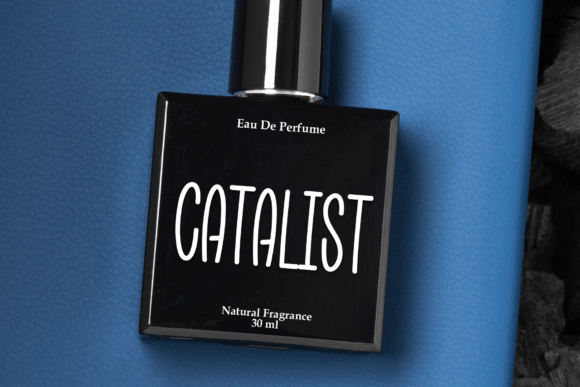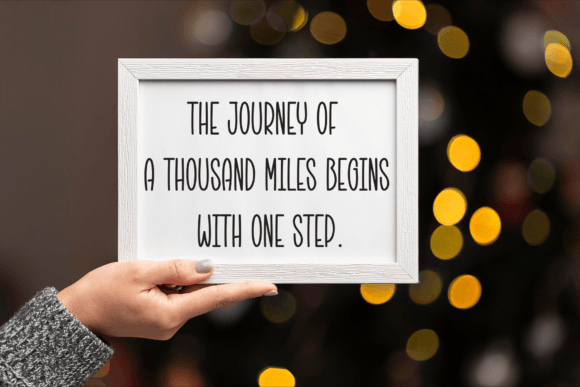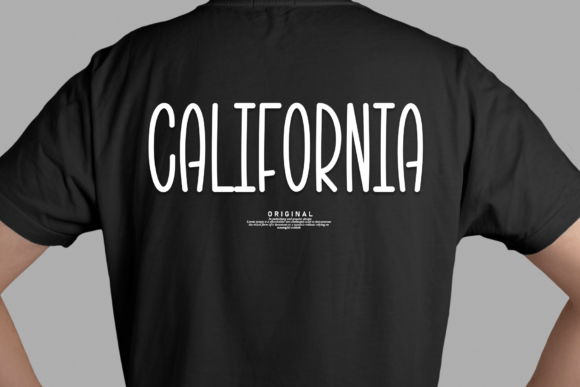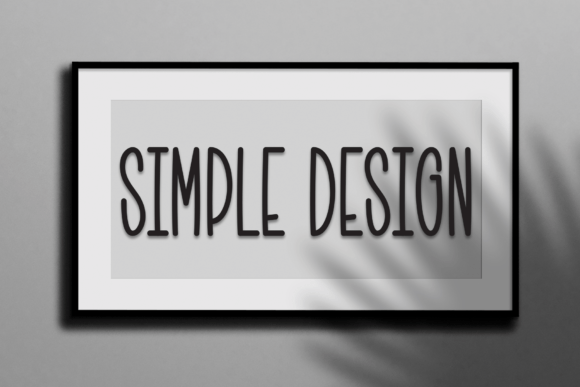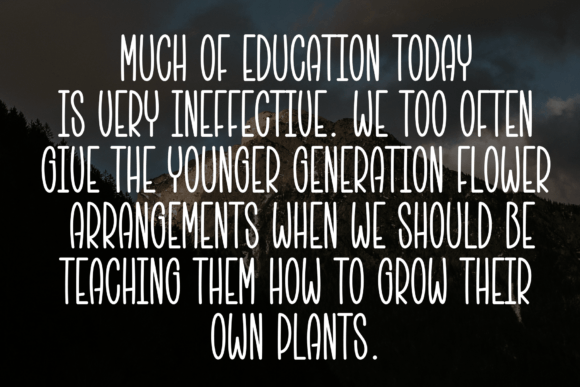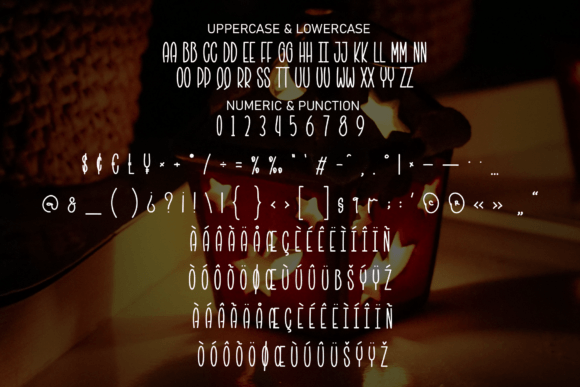
Christmas Lanterns Font: The Perfect Addition to Your Holiday Designs
As the holiday season approaches, designers and crafters are on the lookout for the perfect fonts to add a touch of festive magic to their projects. If you’re looking for a font that embodies the spirit of Christmas, look no further than Christmas Lanterns Font. This stunning display font is sure to capture the hearts of your audience with its elegant design, bright colors, and cheerful letters.
What is Christmas Lanterns Font?
Christmas Lanterns Font is a tall, eye-catching display font that is specifically designed to bring the festive spirit of the holiday season to life. Its elegant design features bright, cheerful letters that are perfect for decorations, cards, and holiday messages. Whether you’re working on a Christmas card, a holiday party invitation, or a festive decoration, this font is sure to add a touch of warmth and joy to your project.
Key Features of Christmas Lanterns Font
- Elegant Design: Christmas Lanterns Font features an elegant design that is sure to impress your audience. Its bright, cheerful letters are perfect for adding a touch of festive magic to your projects.
- Tall and Eye-Catching: This font is tall and eye-catching, making it perfect for headlines, titles, and decorations.
- Perfect for Holiday Projects: Christmas Lanterns Font is specifically designed for holiday projects, making it the perfect addition to your Christmas cards, party invitations, and festive decorations.
Why Choose Christmas Lanterns Font?
There are many fonts available that claim to be perfect for the holiday season, but Christmas Lanterns Font stands out from the rest. Here are just a few reasons why:
- Unique Design: Christmas Lanterns Font features a unique design that is sure to set your projects apart from the rest.
- High-Quality: This font is high-quality and is sure to look great on any device or medium.
- F festive Spirit: Christmas Lanterns Font captures the festive spirit of the holiday season, making it perfect for any Christmas project.
How to Use Christmas Lanterns Font
Tips and Tricks for Using Christmas Lanterns Font
Here are a few tips and tricks to help you get the most out of Christmas Lanterns Font:
- Use it Sparingly: Use Christmas Lanterns Font sparingly to make it stand out. Use it for headlines or titles, and a simpler font for the body text.
- Experiment with Colors: Experiment with different colors to find the perfect combination for your project.
- Add Shadows and Effects: Add shadows and effects to give your text a more festive look.